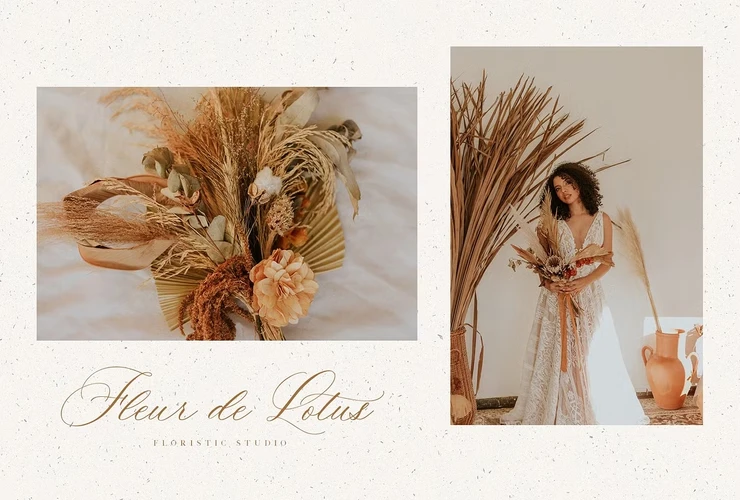
Discover the Elegance of Ms Claudy Regular: Your Go-To Modern Calligraphy Font
If you’re a designer in need of a touch of elegance and sophistication for your projects, look no further than the Ms Claudy font. Whether it’s wedding invitations, save-the-date cards, or feminine branding, this beautiful script font is designed to bring your creations to life with its stylish and graceful aesthetic.
Why You’ll Love Ms Claudy
Ms Claudy is a modern calligraphy font that exudes elegance and style, making it perfect for a wide range of design needs. Its versatility and charm are ideal for projects that require a personal, hand-written touch. With a full set of uppercase and lowercase basic characters, numerals, and punctuation, this font offers everything you need to create stunning designs.
Key Features:
Comprehensive Character Set: Ms Claudy includes a full set of uppercase and lowercase basic characters, numerals, and punctuation.
Ligatures and Stylistic Alternates: The font comes with ligatures and a plethora of stylistic alternates to perfectly mimic natural calligraphy.
Language Support: Ms Claudy supports Western European, Central European, and South Eastern European languages, making it accessible for a global audience.
Enhance Your Designs with Ms Claudy
Whether you’re designing a wedding invitation that needs a touch of elegance or branding materials that require a stylish script, Ms Claudy is the perfect choice. The font’s natural calligraphy style is designed to make your text look like it was written with care and precision.